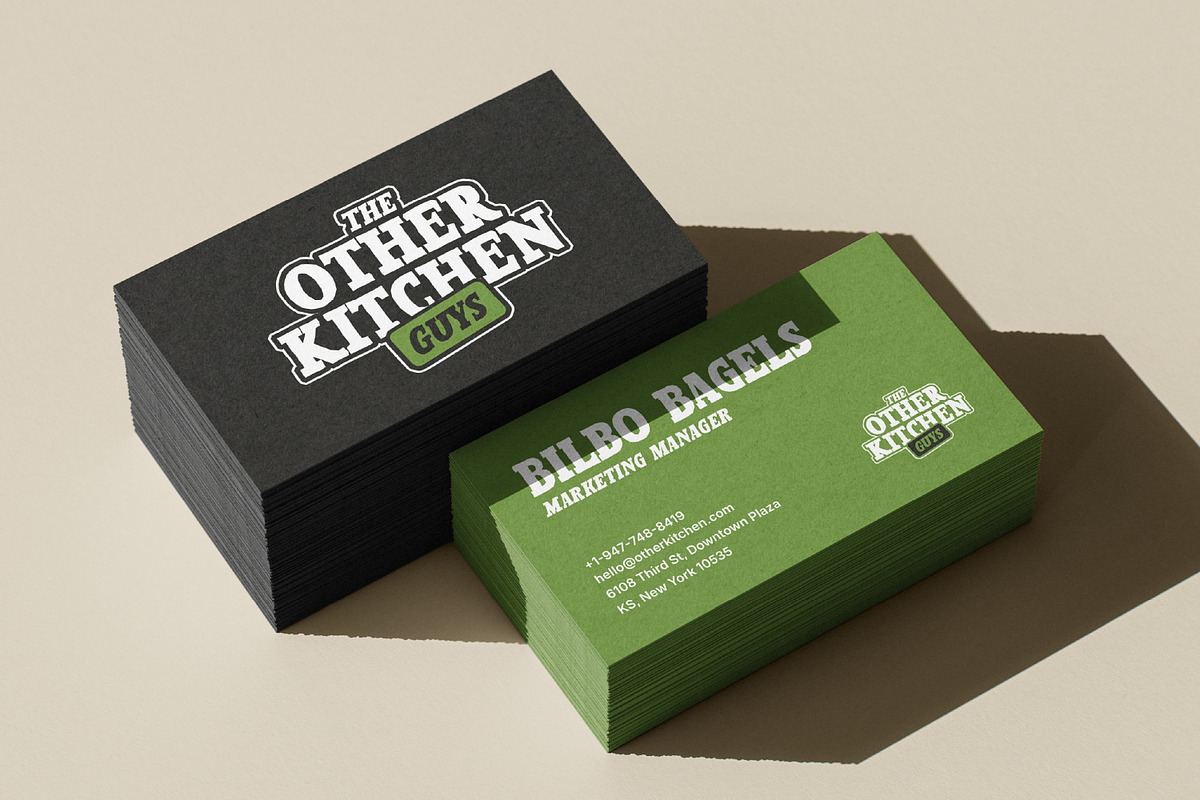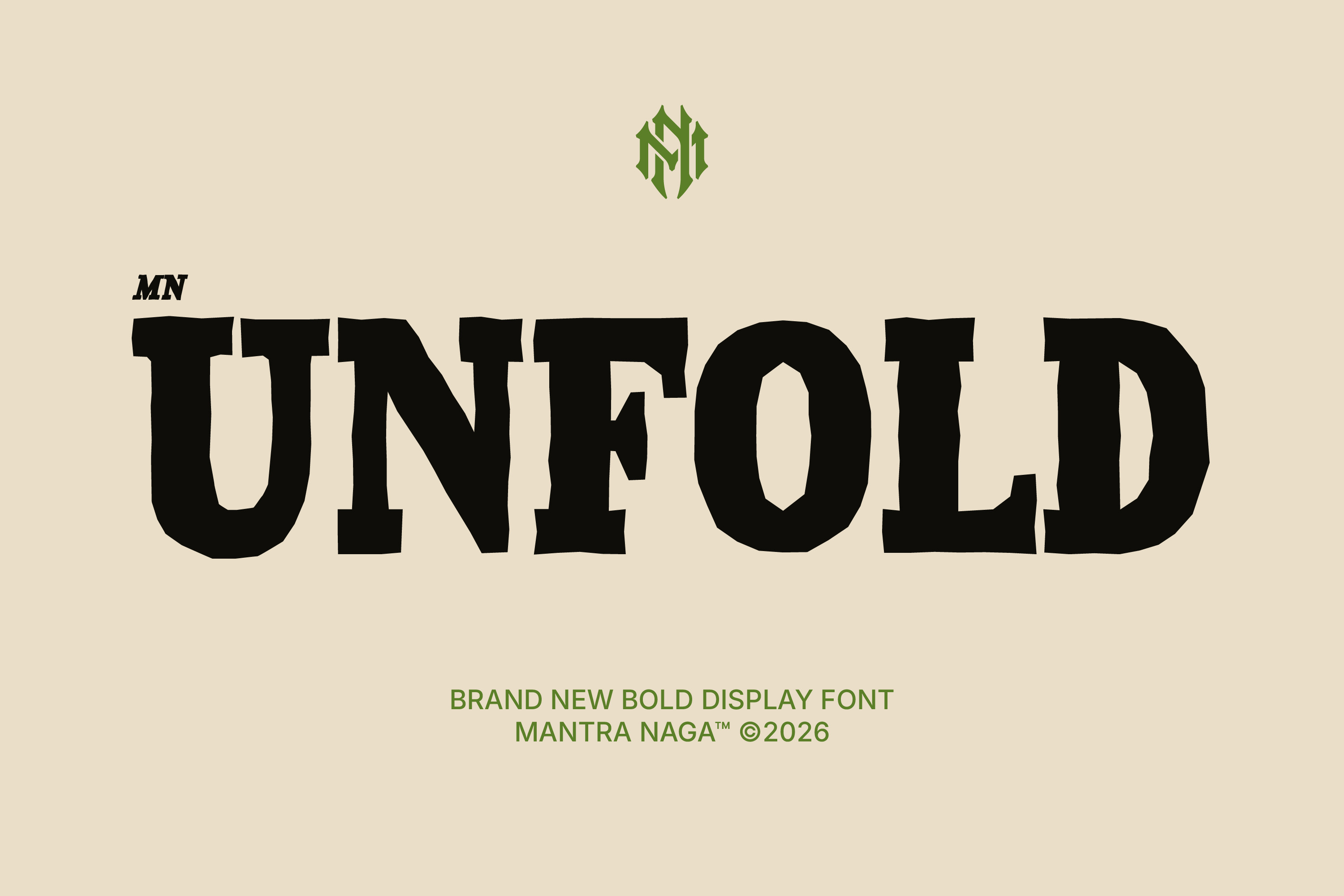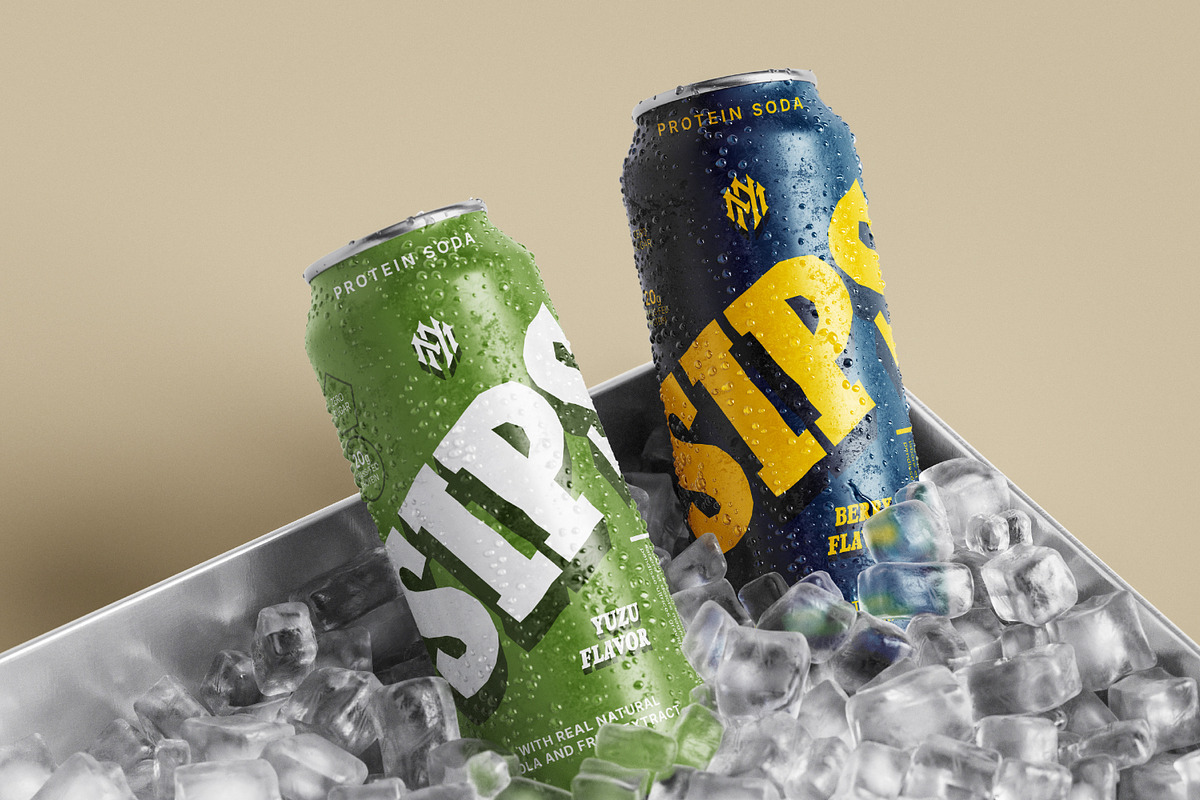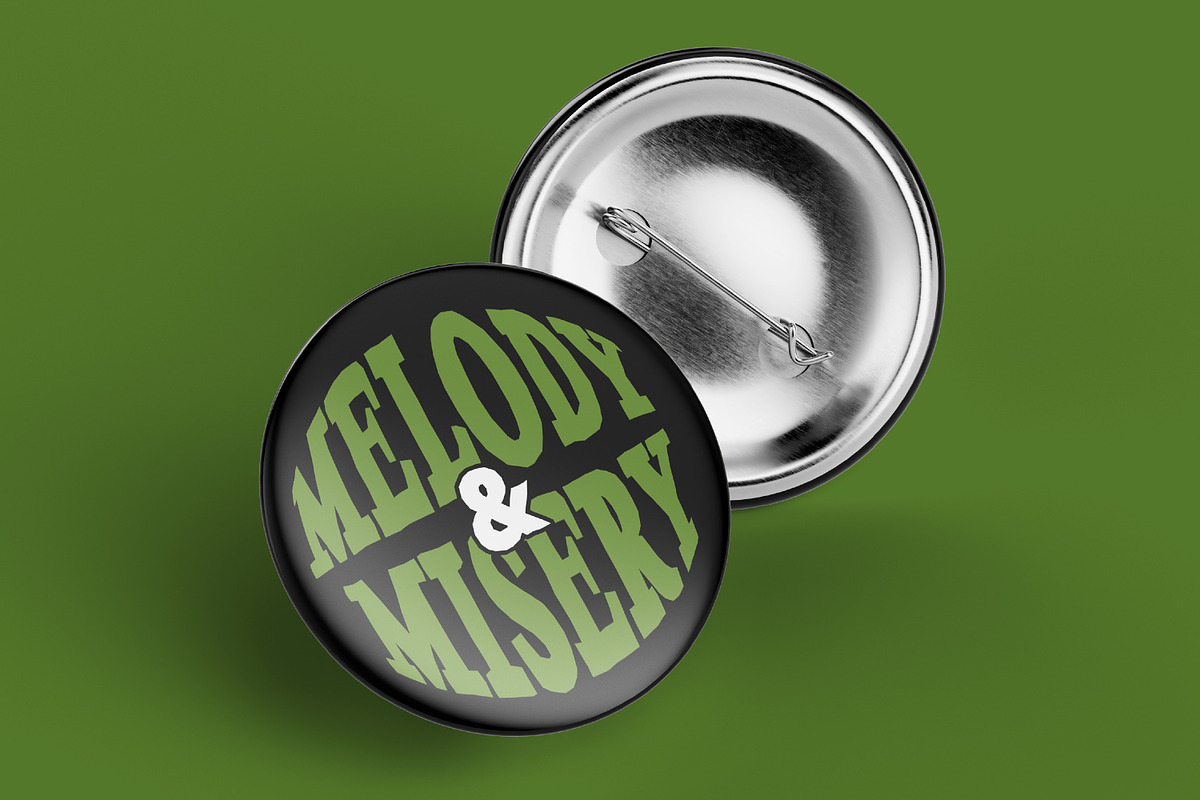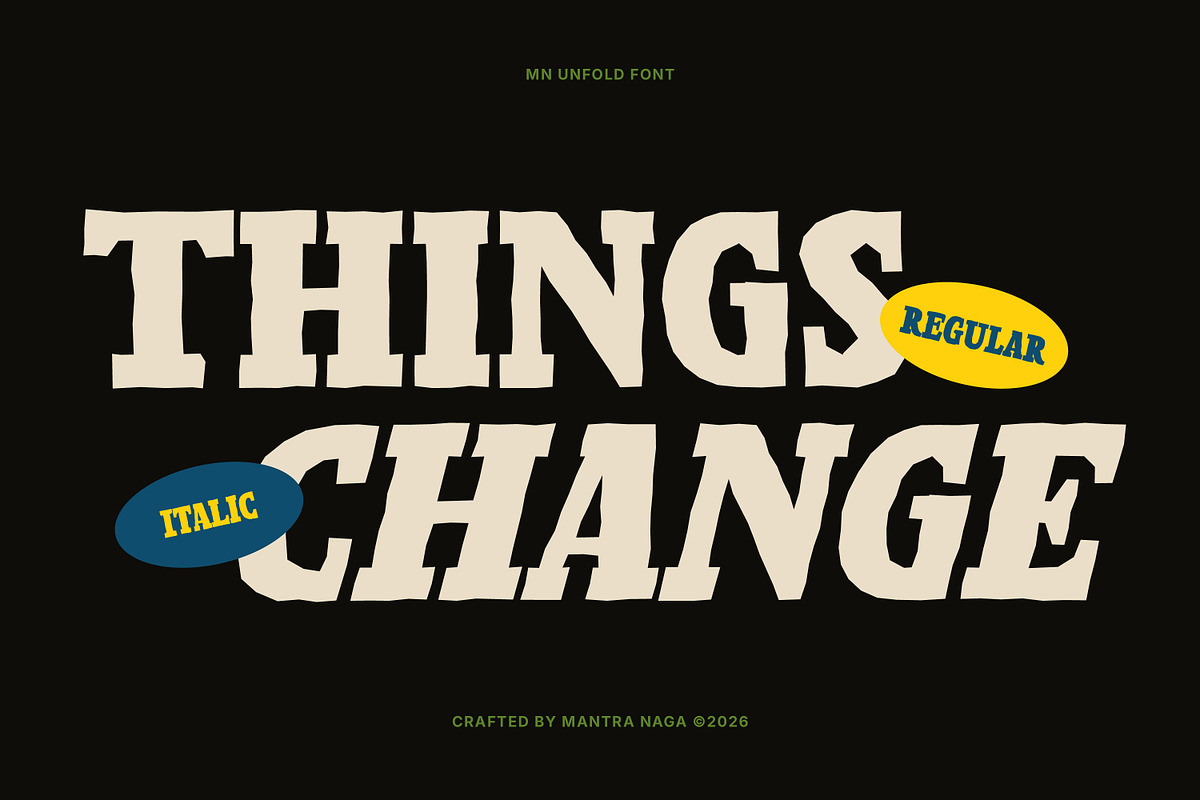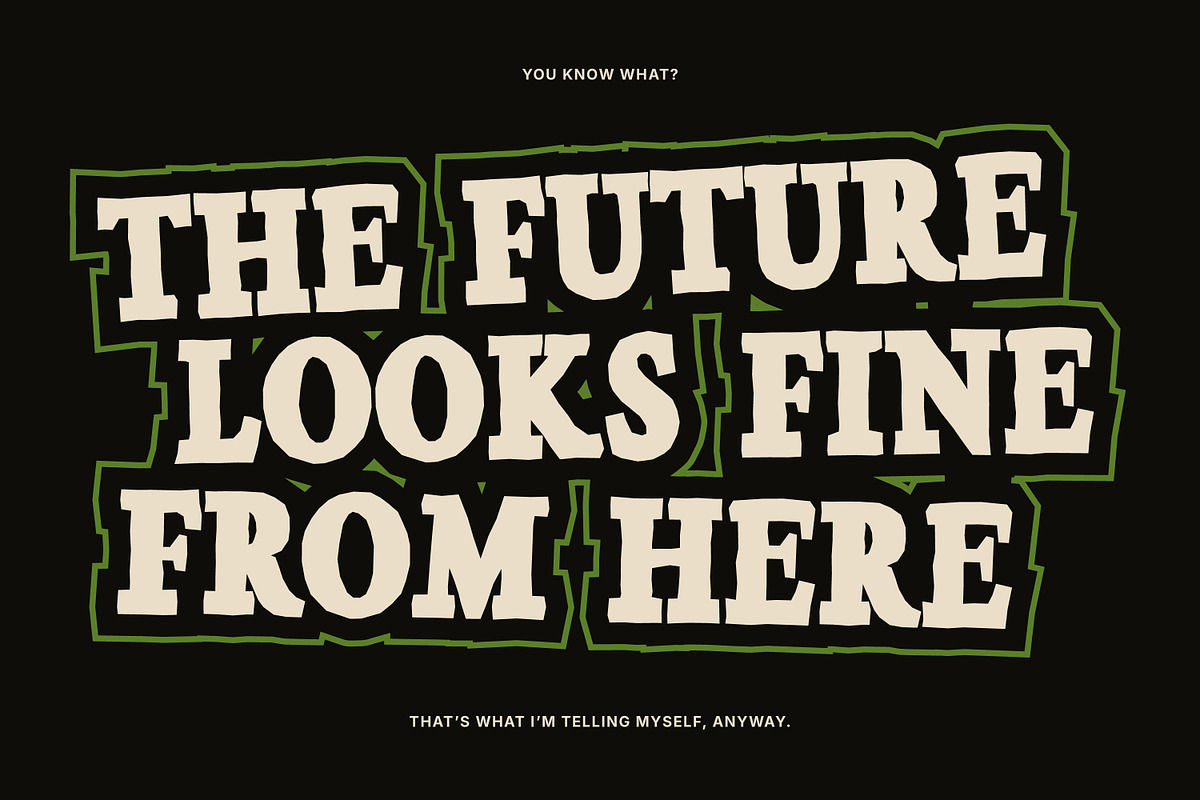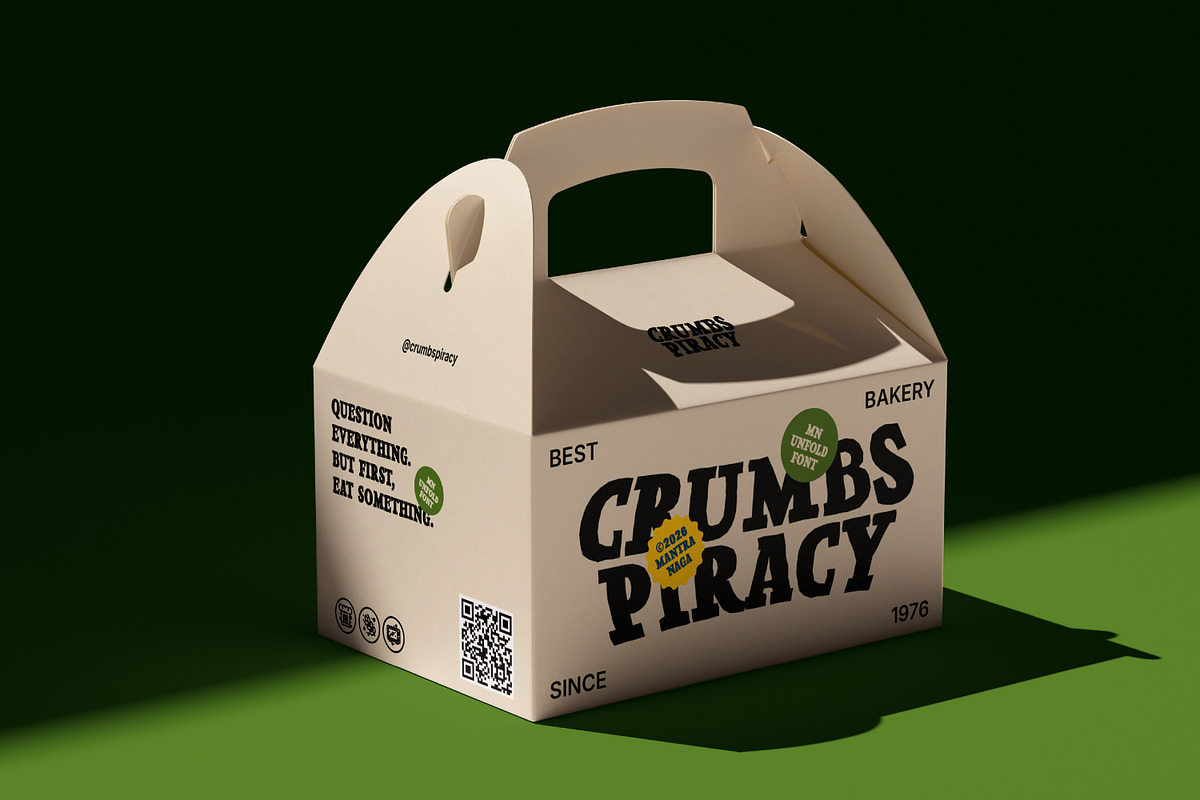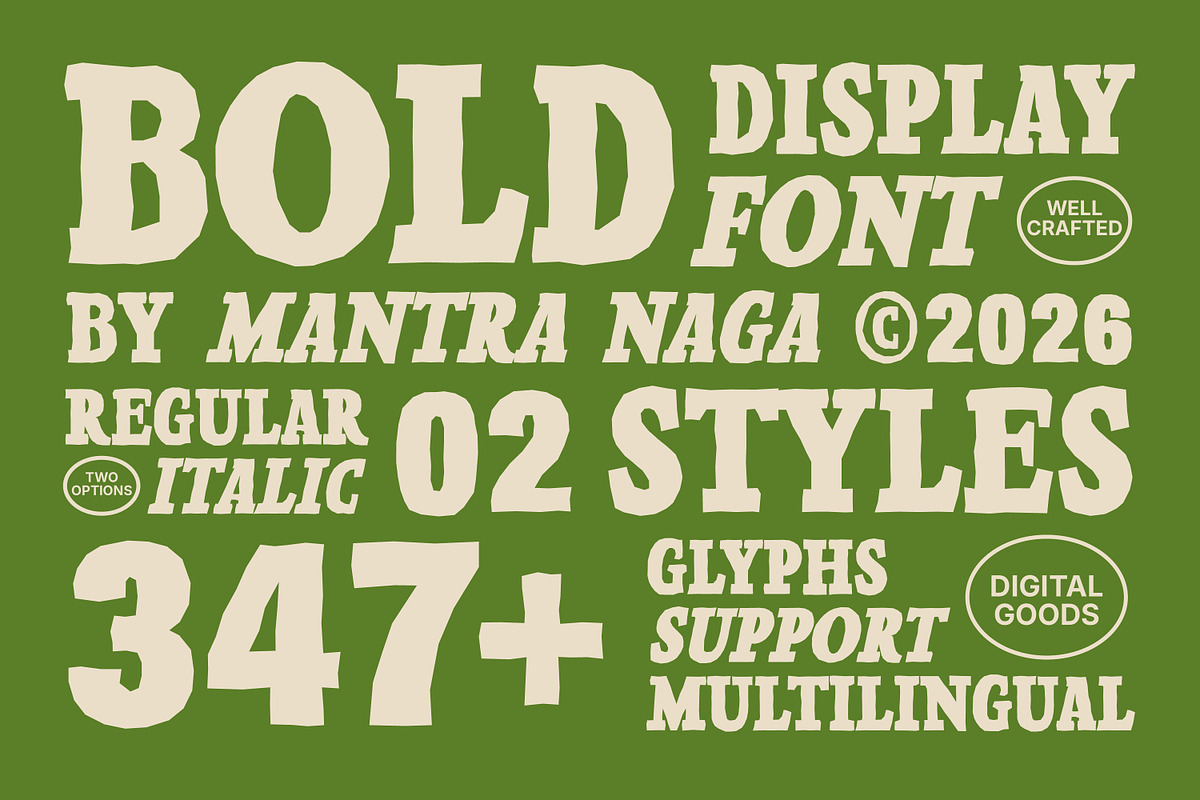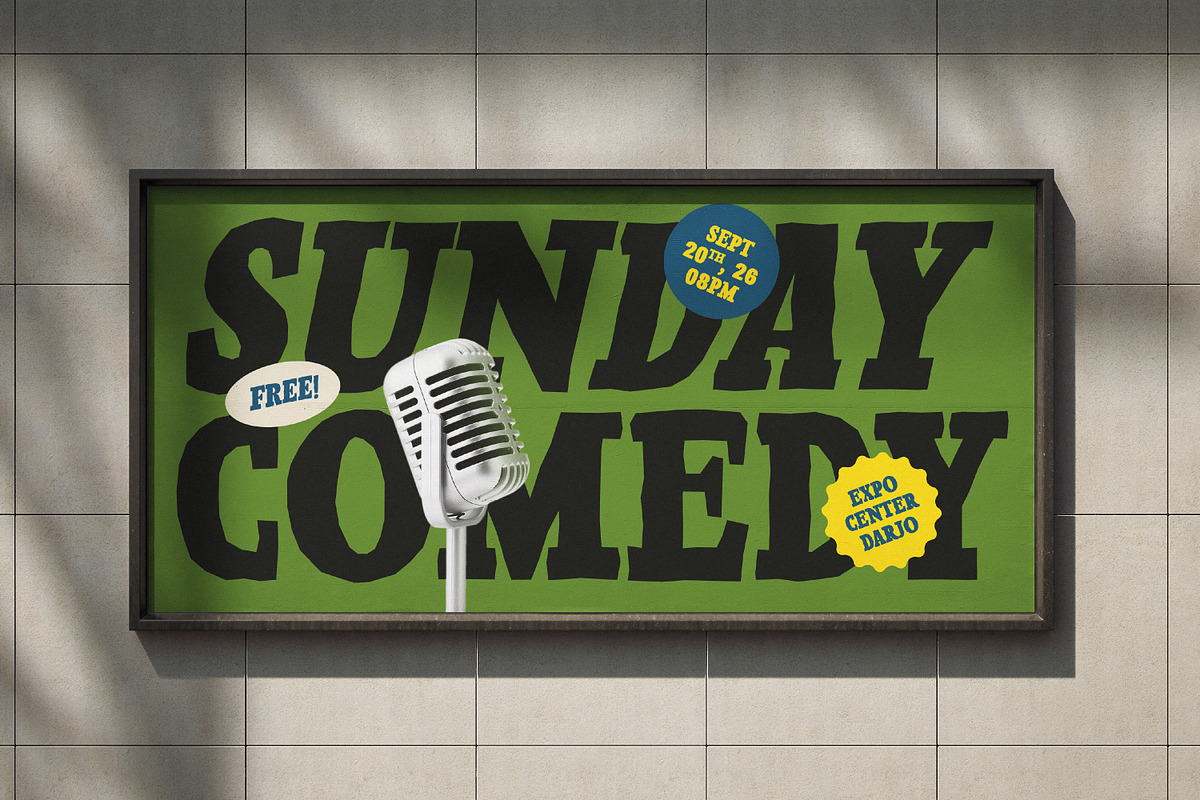
MN Unfold - Bold Display Typeface
MN Unfold is a bold display typeface inspired by the raw, irregular shapes of a sheet of paper that has been crumpled, pressed, and unfolded.
Its heavy letterforms combine strong display proportions with unexpected dents, bends, and uneven edges, creating a handmade and imperfect character. Rather than simply adding a distressed texture, MN Unfold builds the roughness directly into the structure of each letter.
With its raw, expressive personality, MN Unfold is made for bold headlines, posters, editorial layouts, packaging, branding, apparel, album artwork, and experimental graphic design.
MN Unfold comes with Regular and Italic styles, bringing a rough yet versatile voice to contemporary display typography.